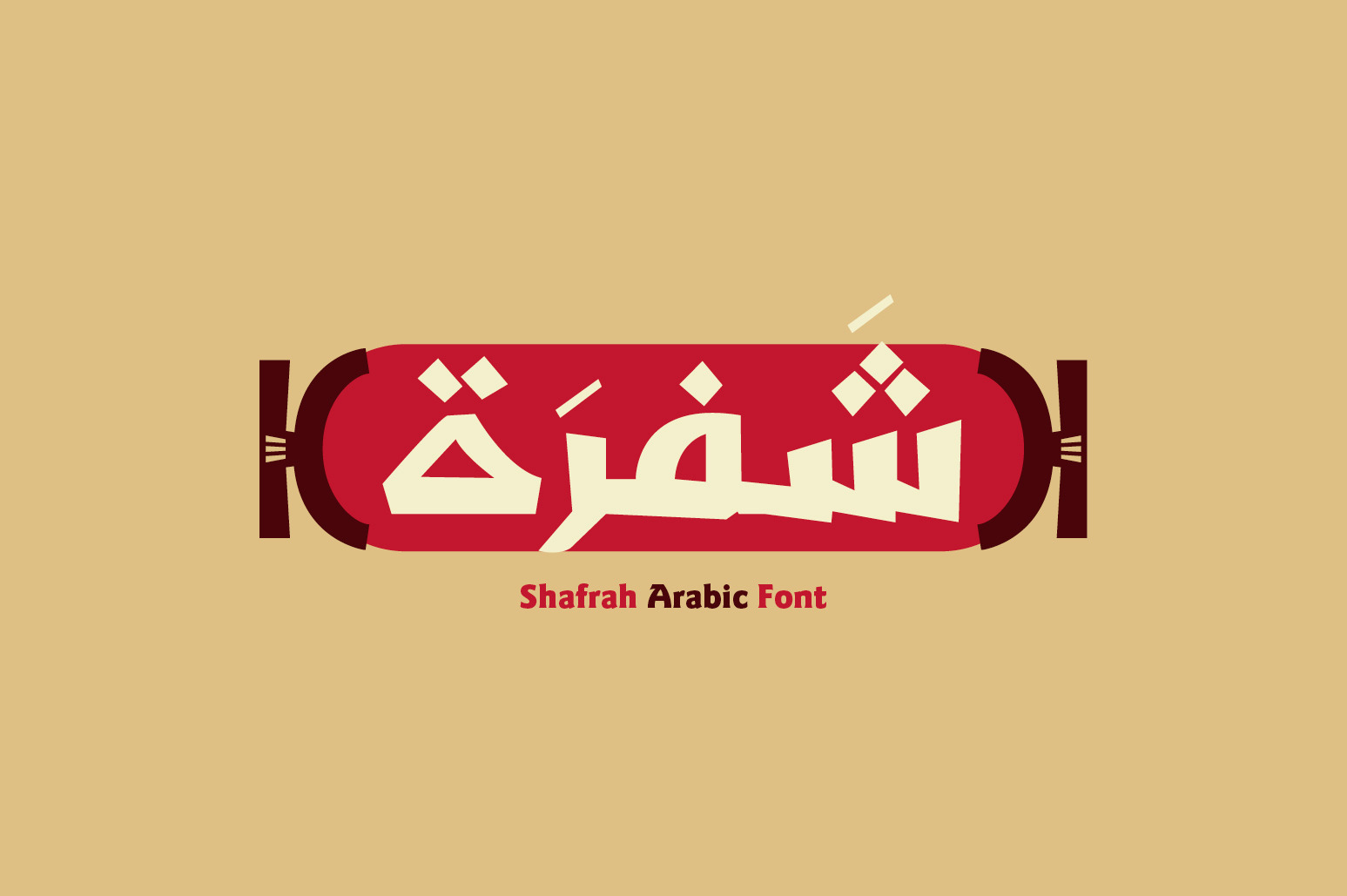
Shafrah - Arabic Font
Shafrah (the Arabic for ‘Encrypted Code’) is an Arabic display font that is inspired by the Hieroglyphs of Ancient Egypt. Shafrah suits a various range of design applications such as advertising, social media, web design and print. Shafrah supports Windows, Mac and mobile applications.